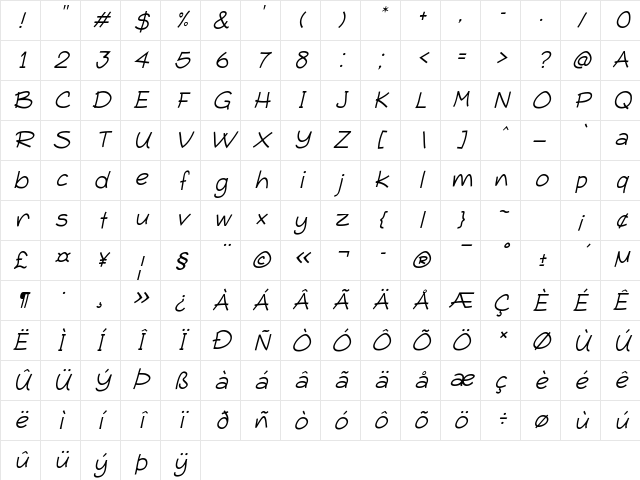
Typo Comica Light Italic Free Font
Typo Comica Light Italic
Foundry: StudioTypo
Design Context for Typo Comica
Typo Comica has an approachable, lighthearted character - its loose, expressive forms are well-suited to children's content, casual branding, and fun-first design. The slanted form adds forward momentum and visual energy.
Font Pairing: Pairs well with a rounded or humanist sans for body copy, maintaining the friendly tone without relying on Typo Comica to carry extended reading.
Pro Tip: Use Typo Comica at larger display sizes where its expressive character can land. Pair with a clean, simple sans for body copy to maintain readability.